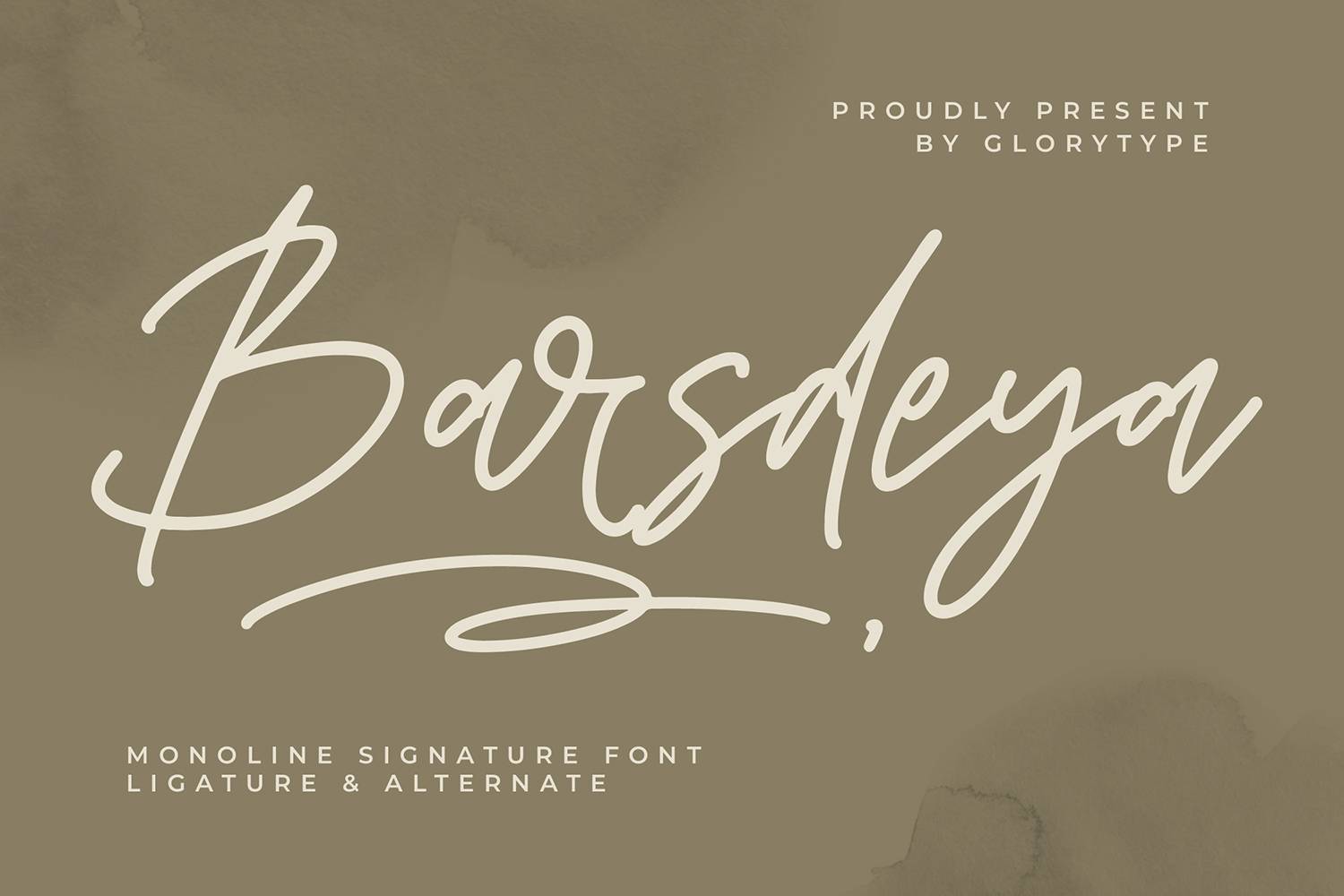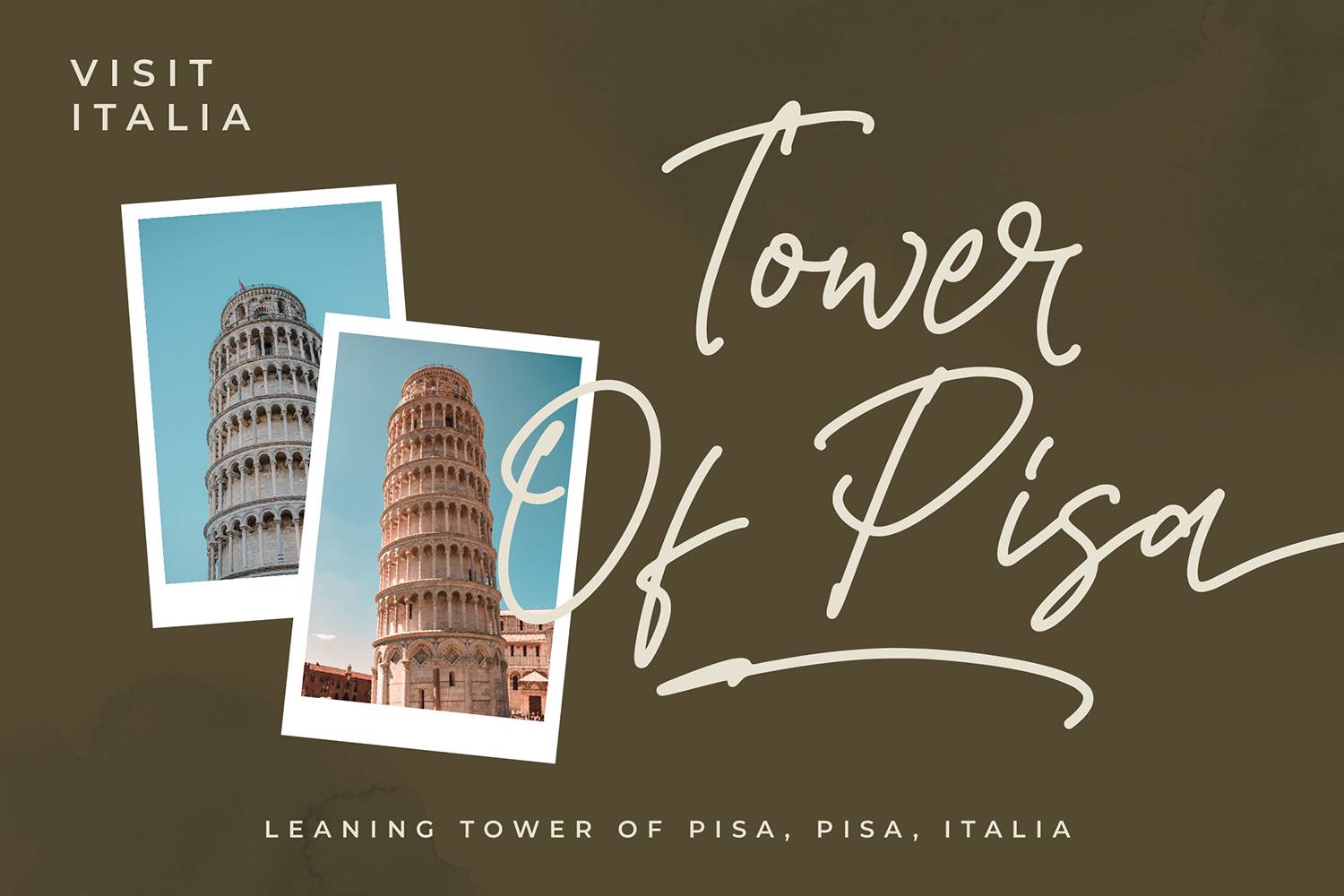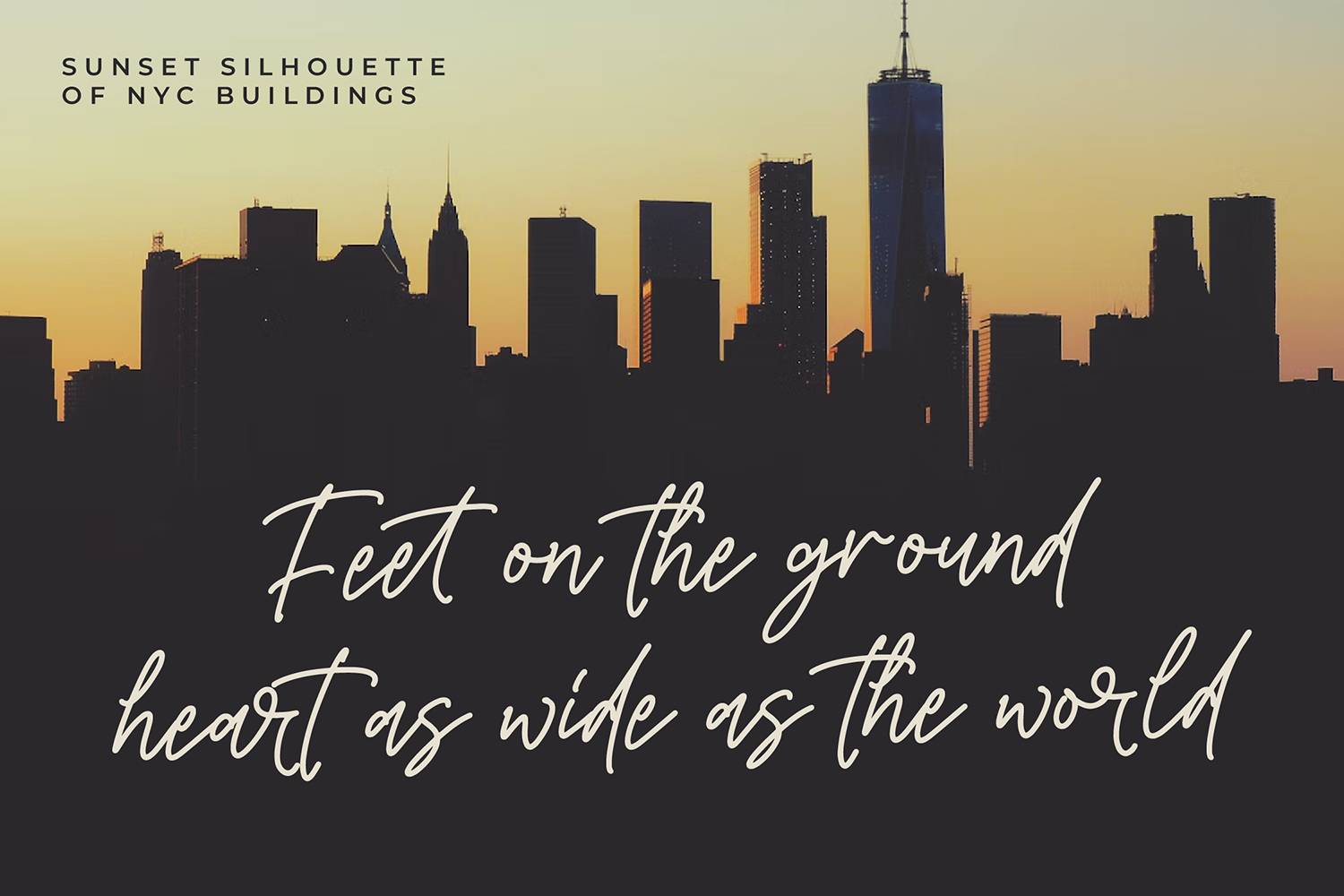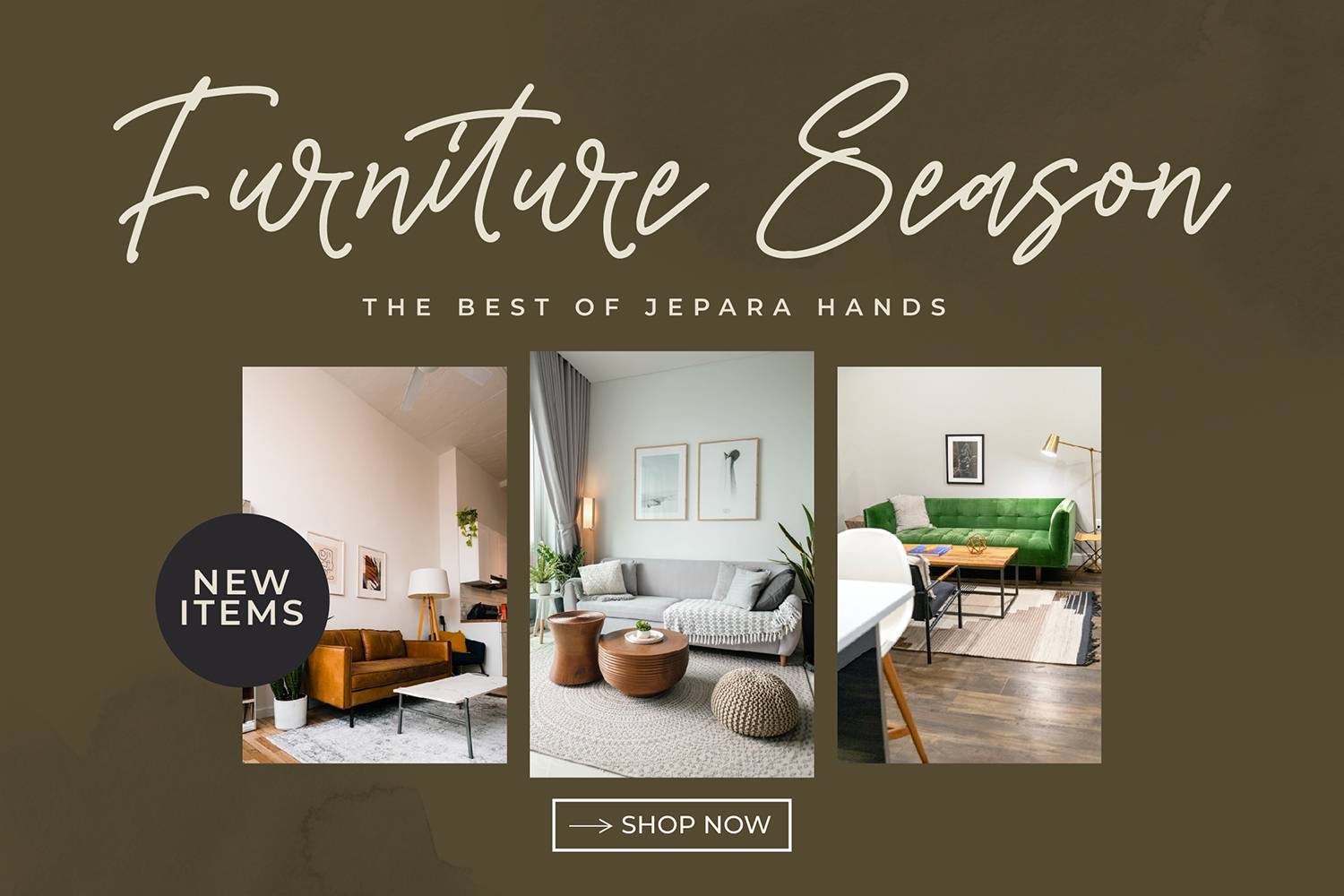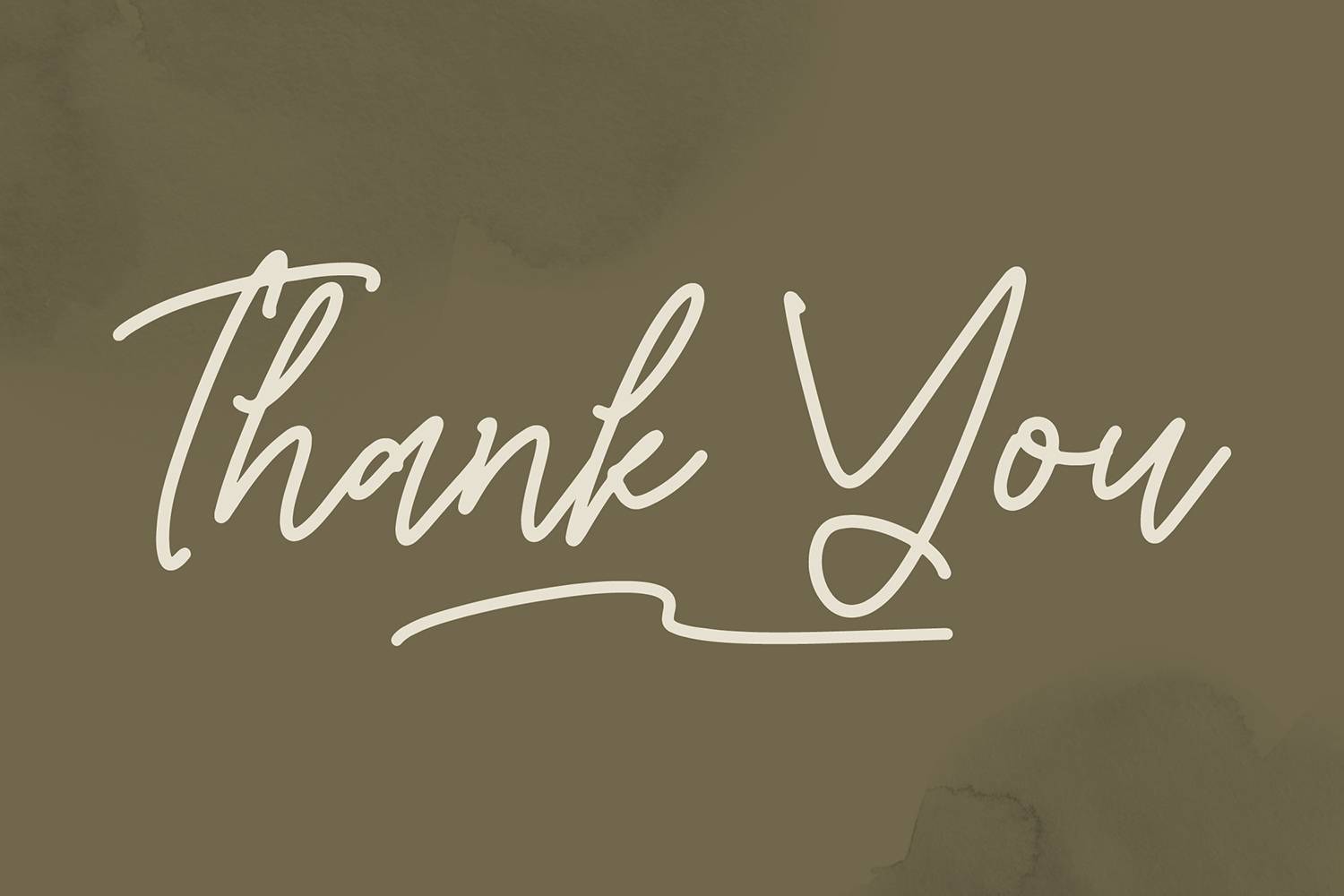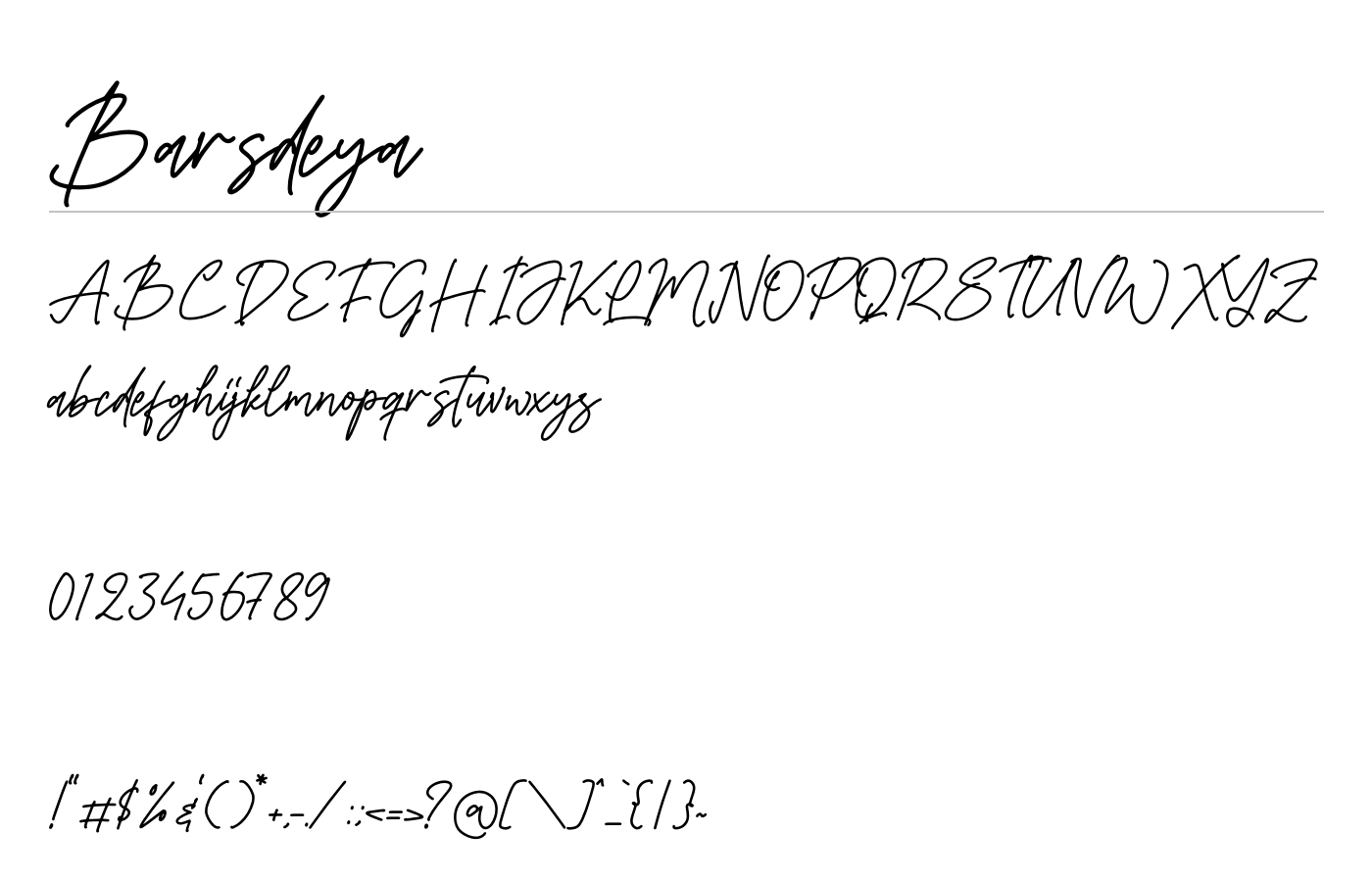
Barsdeya is a delicate, handwritten script font with a light weight and elegant flow. Its narrow letterforms, gentle curves, and slightly irregular strokes give it a personal, artistic feel that works beautifully for feminine branding, invitations, and creative projects requiring a sophisticated yet approachable touch. This font shines in expressive headlines and logos where a sense of handcrafted charm and subtle elegance is desired.
Barsdeya Font
About Barsdeya Font
| Font family | Barsdeya Font |